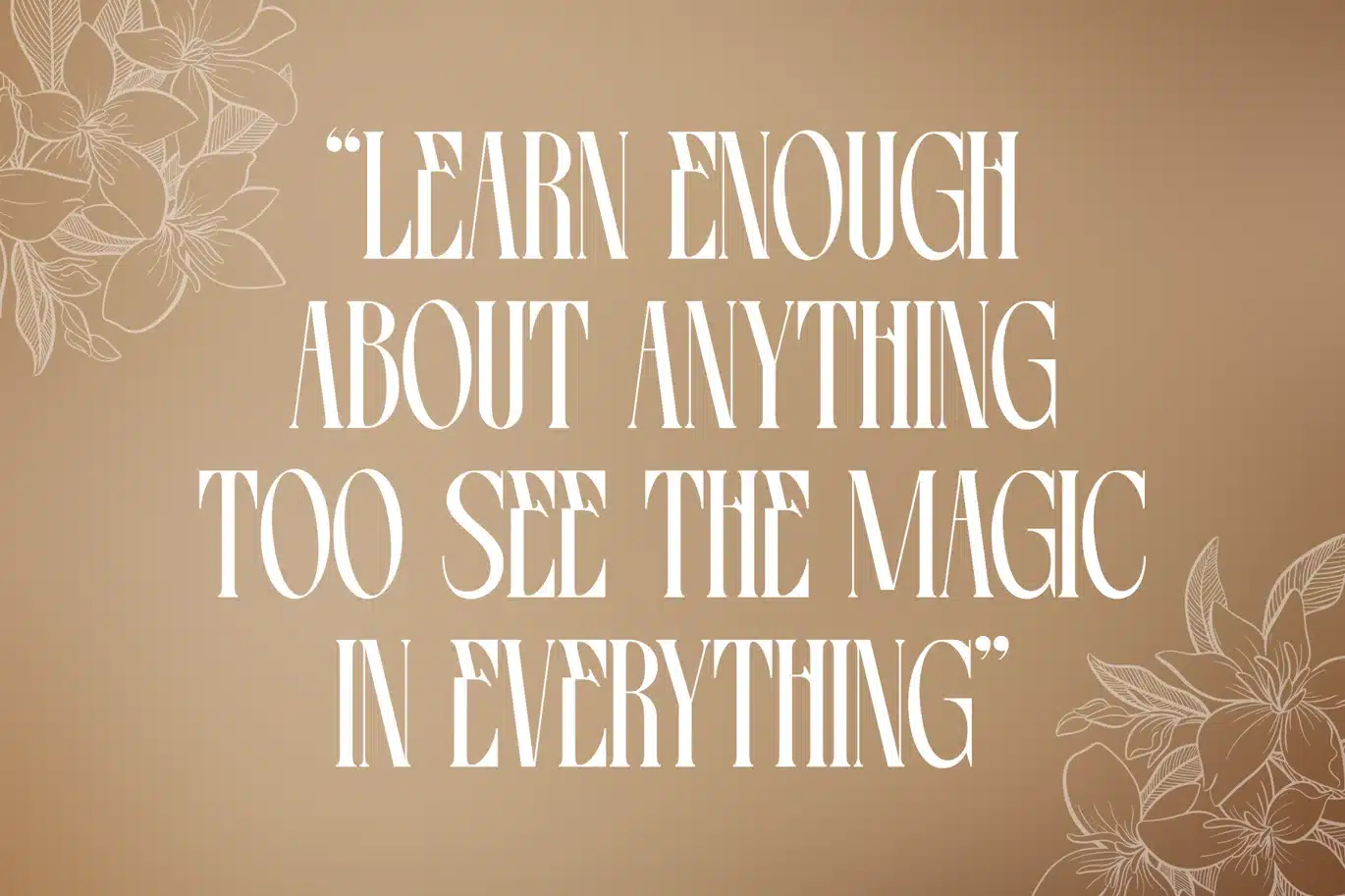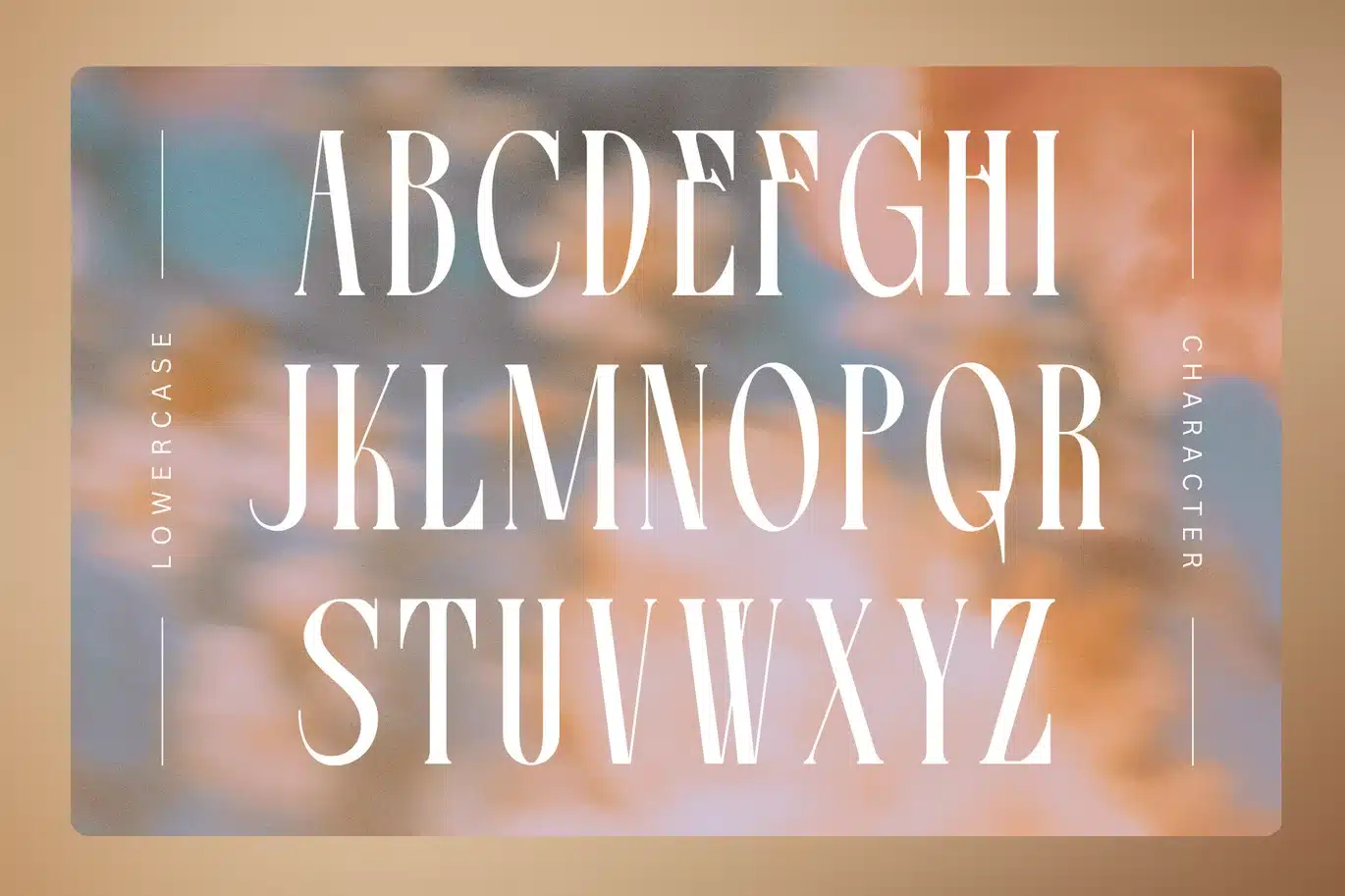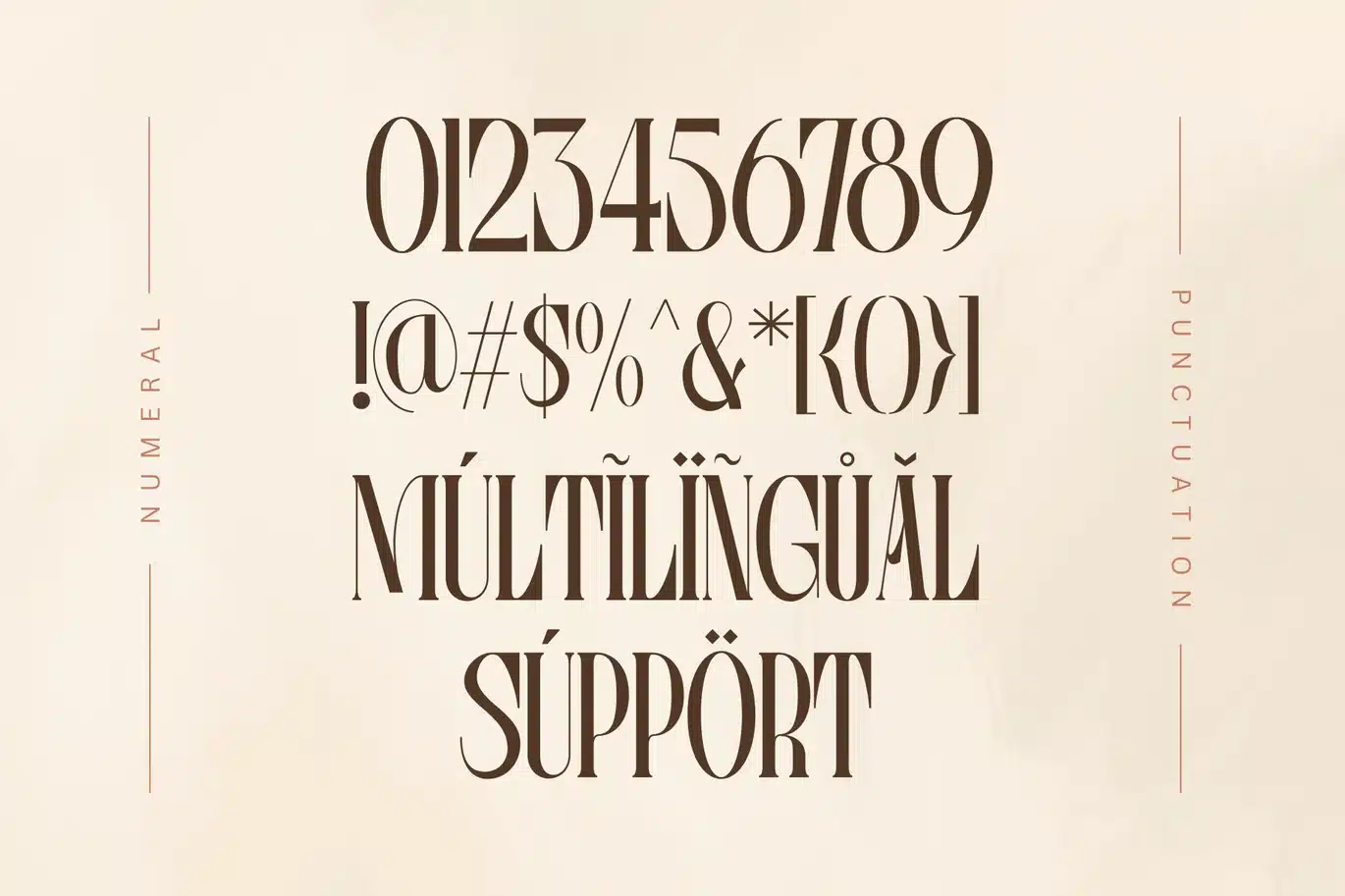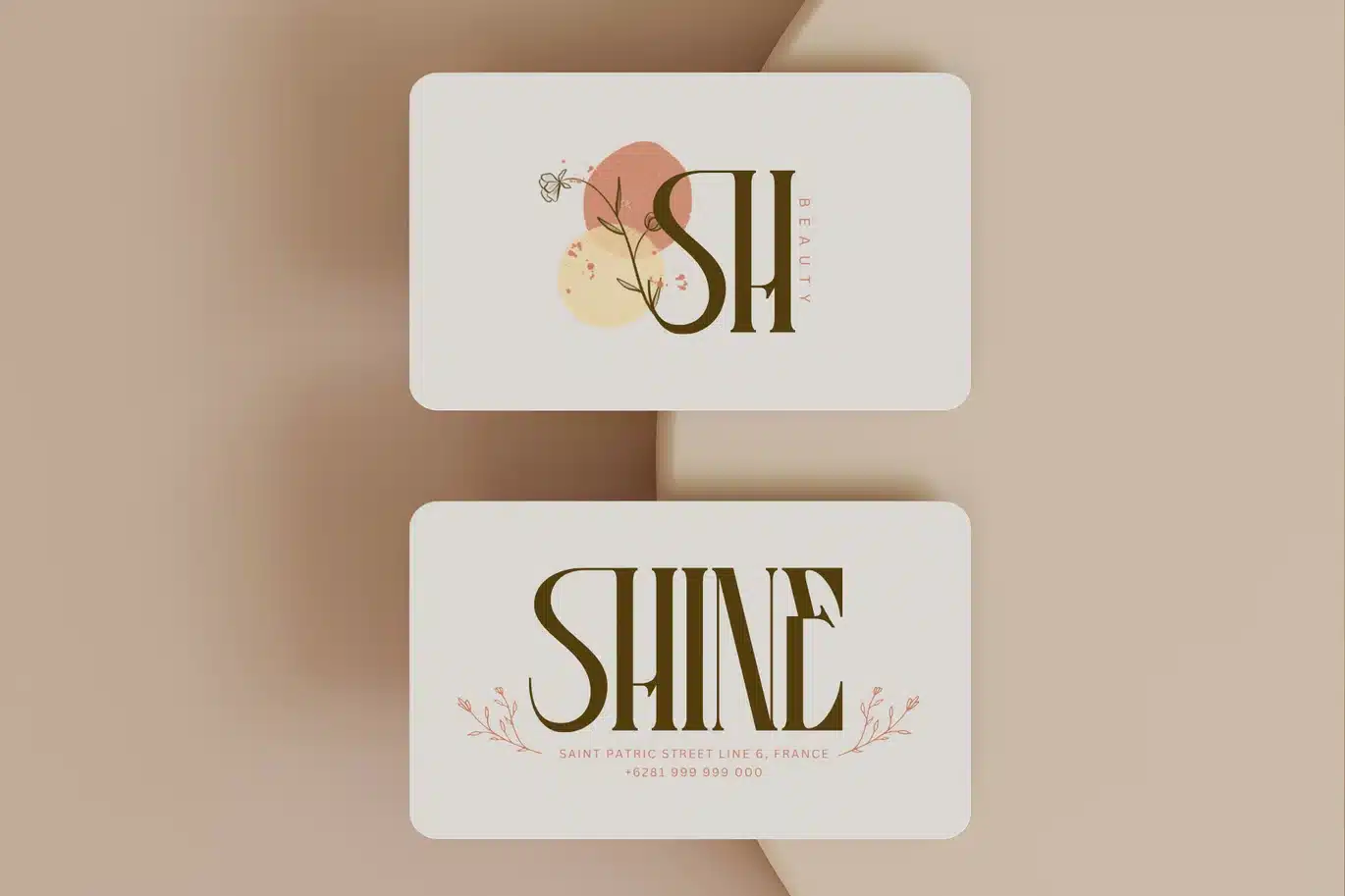
Eroum – Branding Logo Font
Eroum - Branding Logo Font
Eroum Font offers beautiful typographic harmony for a diversity of design projects, including logos & branding, social media posts, advertisements & product designs.